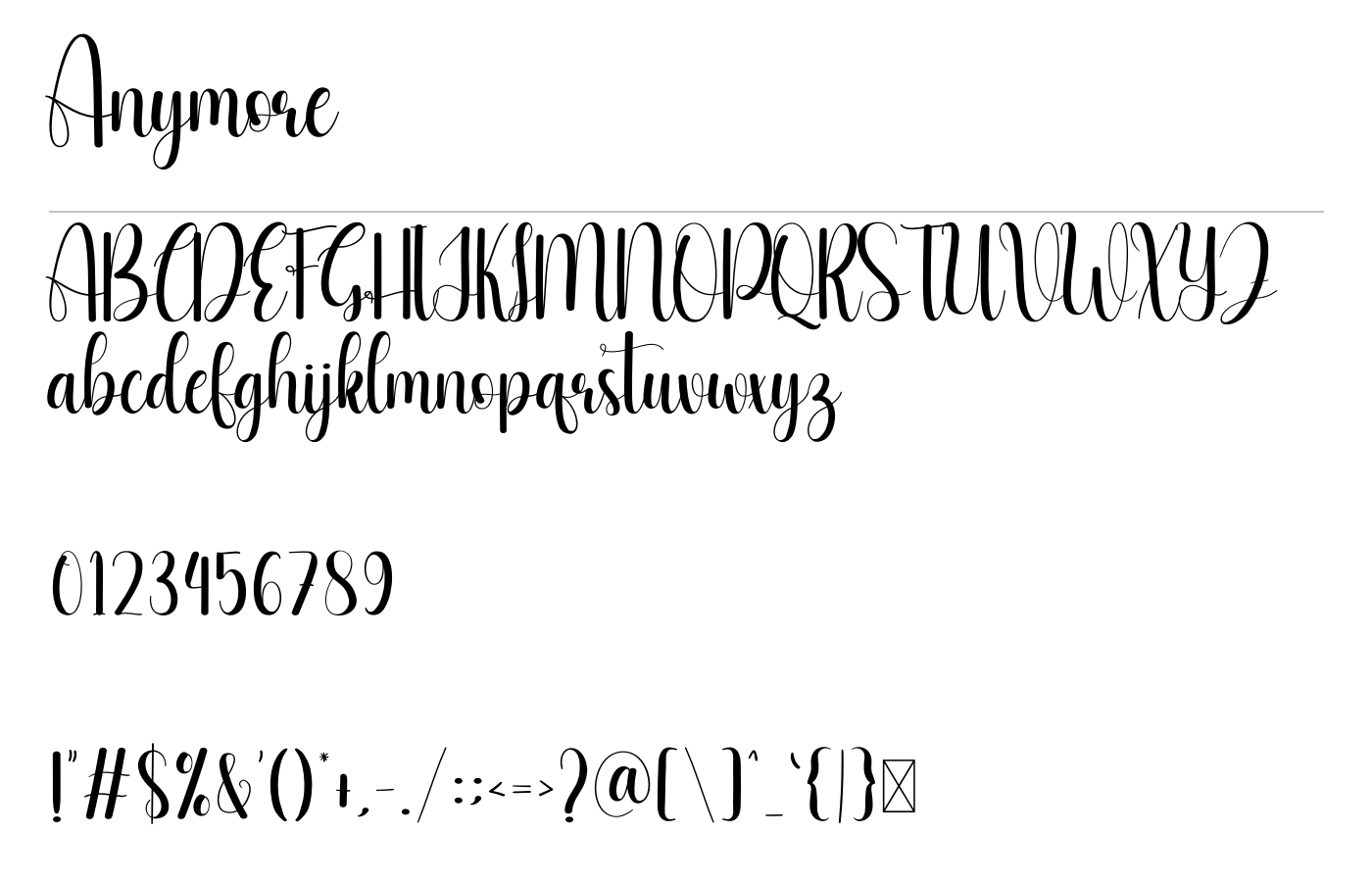
Anymore Font is a stylish script typeface with elegant, flowing strokes that combine tall, narrow letterforms with playful swashes and loops. Its high contrast between thick and thin lines, alongside its decorative uppercase characters, gives it a sophisticated yet whimsical feel, perfect for fashion branding, invitations, and headlines where a touch of charm and personality is desired. This font works best in designs that seek a unique, handcrafted look with a modern calligraphic flair.
Anymore Font
About Anymore Font